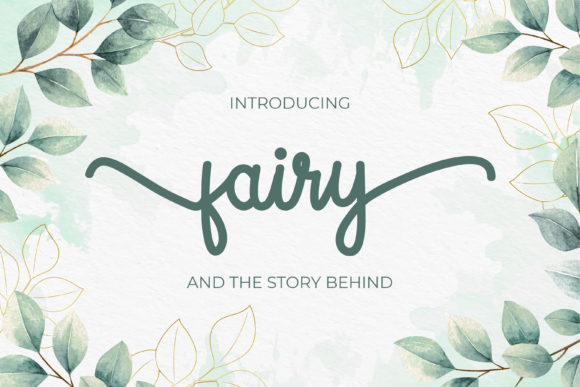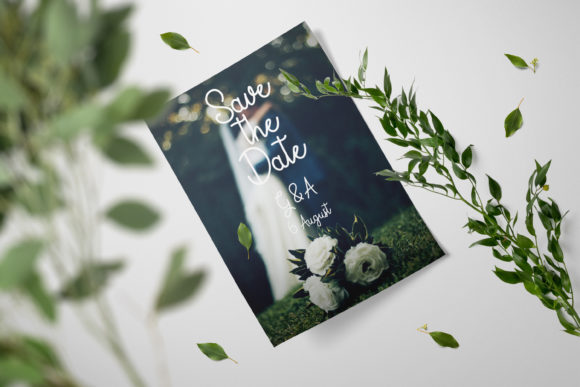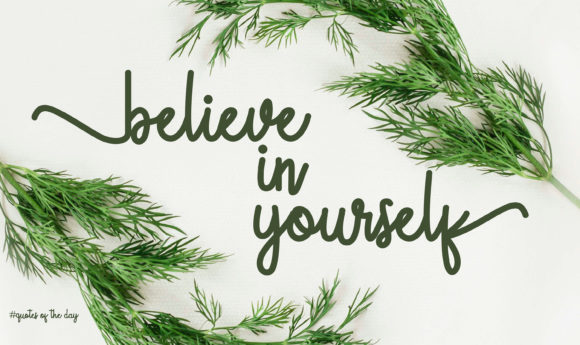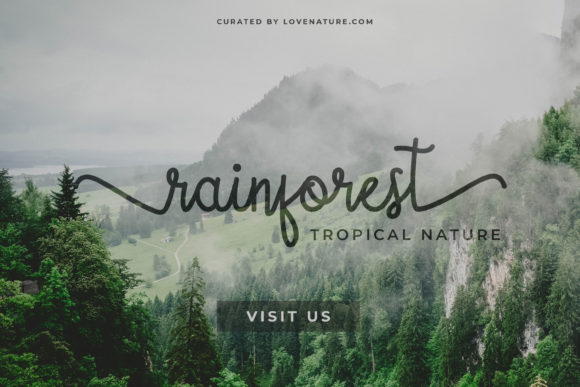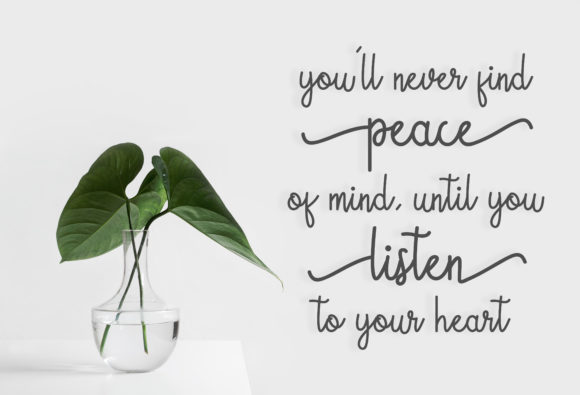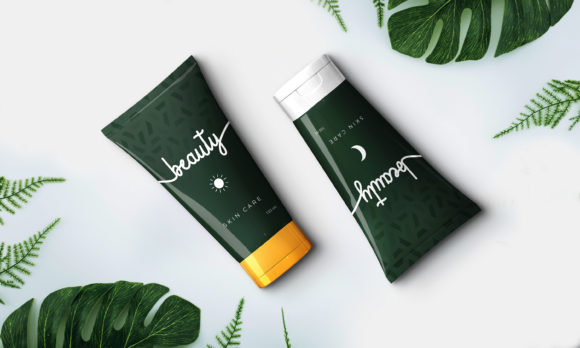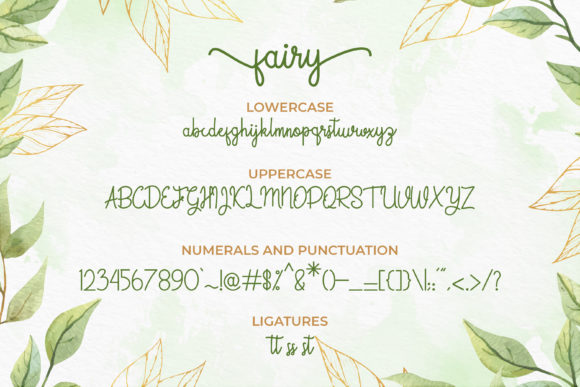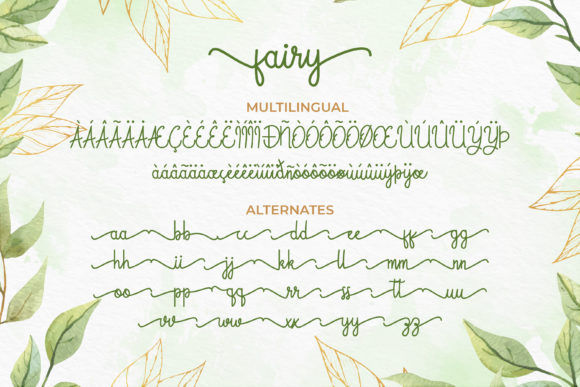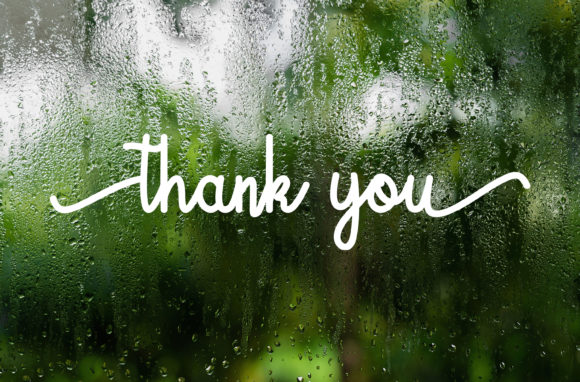
Fairy Font
About Fairy Font
Fairy is an enchanting and elegant script font that adds a touch of magic to any design. With its carefully crafted letterforms and elegant curves, this font captures the essence of fairy tales and fantasy. Whether you’re creating social media graphics, invitations, or DIY projects, Fairy will transform your creative ideas into true works of art.
One of the notable features of Fairy is its extensive glyph and swash options. With PUA (Private Use Area) encoding, you can easily access a wide range of alternate characters, ligatures, and decorative swashes to add even more style and flair to your designs. This versatility allows you to create unique and personalized looks that truly stand out.
The elegance and refinement of Fairy make it suitable for a variety of applications. Use it for branding and logo designs to create a sense of sophistication and charm. Incorporate it into your Instagram posts and captions to add a touch of whimsy and grace. It’s also a great choice for wedding invitations, stationery, and other projects that require a romantic and magical feel.
The carefully designed curves and smooth lines of Fairy give it a graceful and flowing appearance. Each letter has been crafted with attention to detail, resulting in a cohesive and visually pleasing typeface. The overall effect is a font that exudes elegance and evokes a sense of wonder and enchantment.
Whether you’re a professional designer or a DIY enthusiast, Fairy is a versatile and captivating font that will inspire your creativity. Its magical and elegant qualities will elevate your designs and captivate your audience. Let Fairy be the enchanting companion for your creative journey, turning your ideas into true pieces of art.
Embrace the magic of Fairy and unlock the endless possibilities it offers. With its elegant script and abundance of glyphs and swashes, you can create truly unique and captivating designs. Whether you’re designing for personal or professional projects, Fairy will bring a touch of elegance and enchantment to your creations.